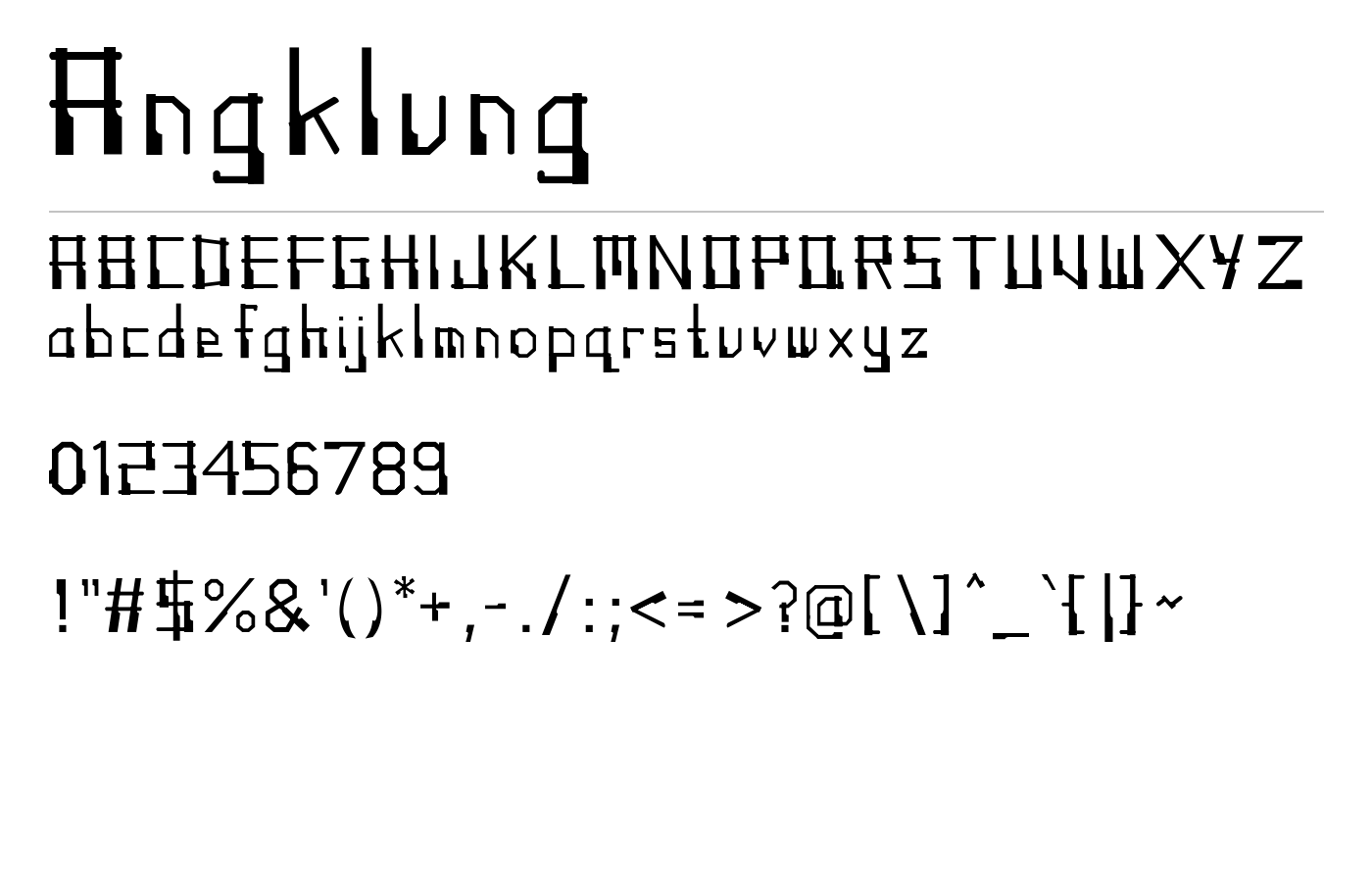
Angklung is a uniquely stylized sans serif font characterized by its narrow, geometric letterforms and constructed stroke style that resembles interconnected lines or bamboo joints. It offers a modern and technical feel with medium contrast and a mix of sharp angles and right-angled connectors, making it ideal for creative branding, tech-related designs, and artistic projects seeking an unconventional, handcrafted vibe. Its distinct appearance works best in display uses like logos, headlines, or posters where its intricate design can be fully appreciated.
Angklung Font
About Angklung Font